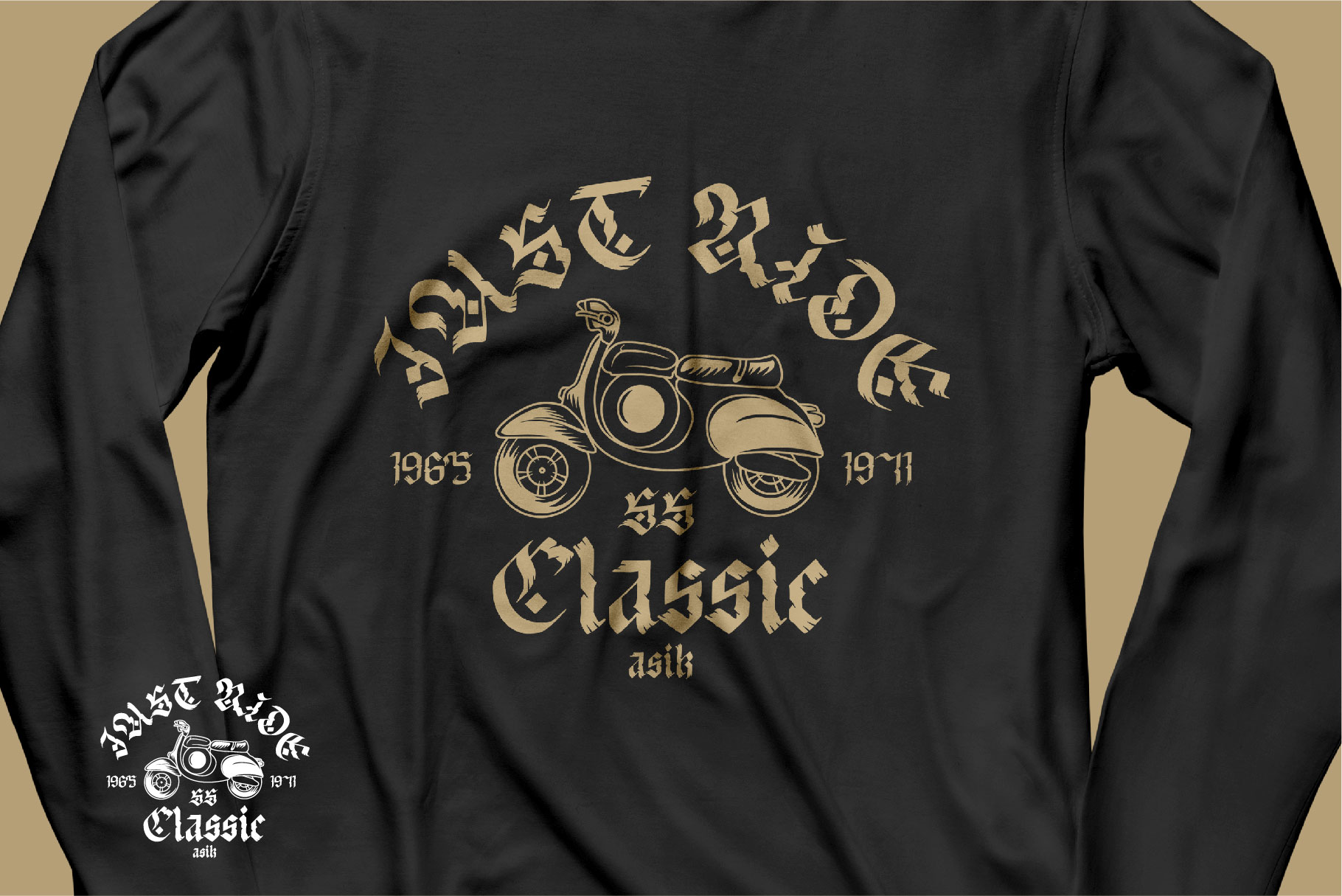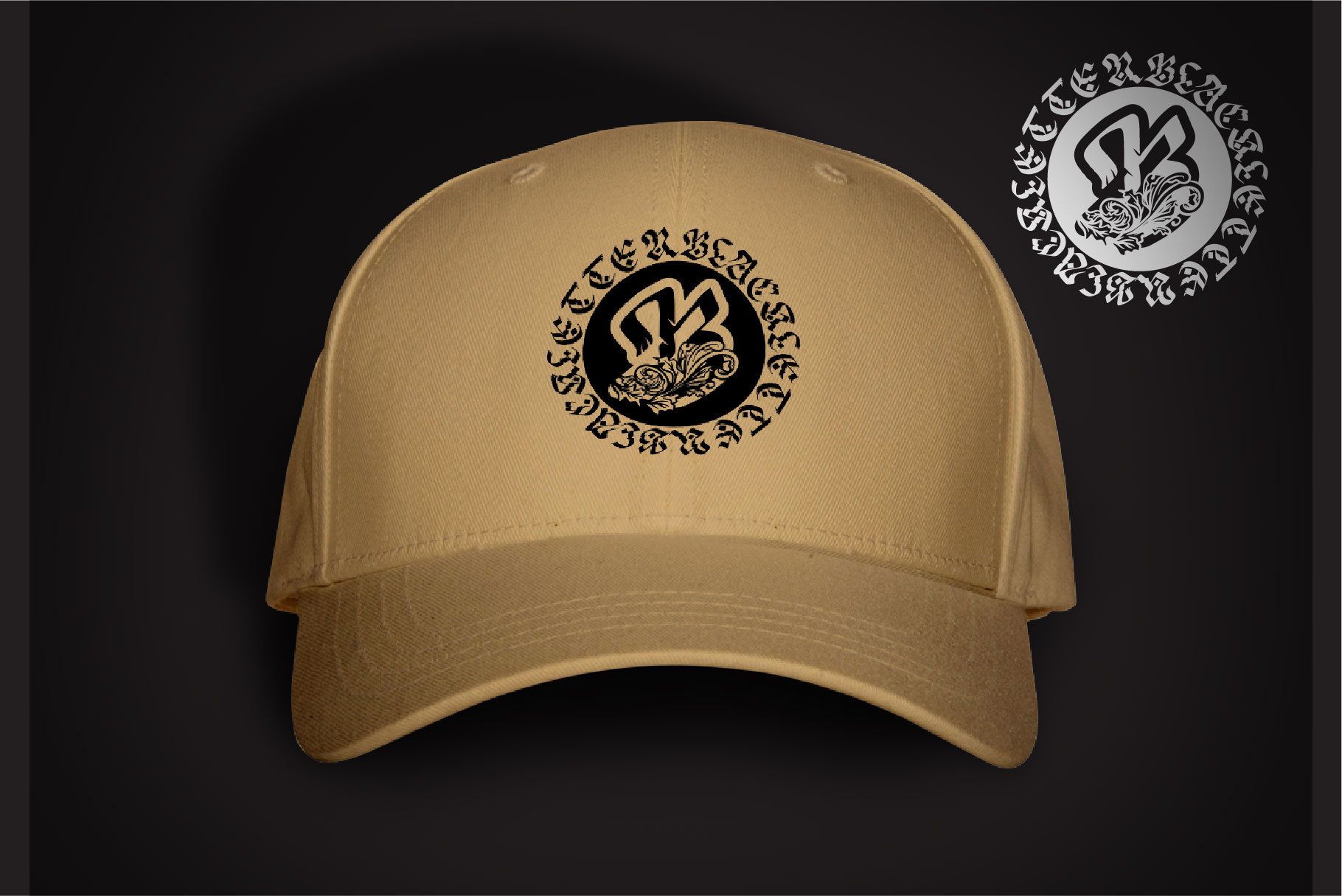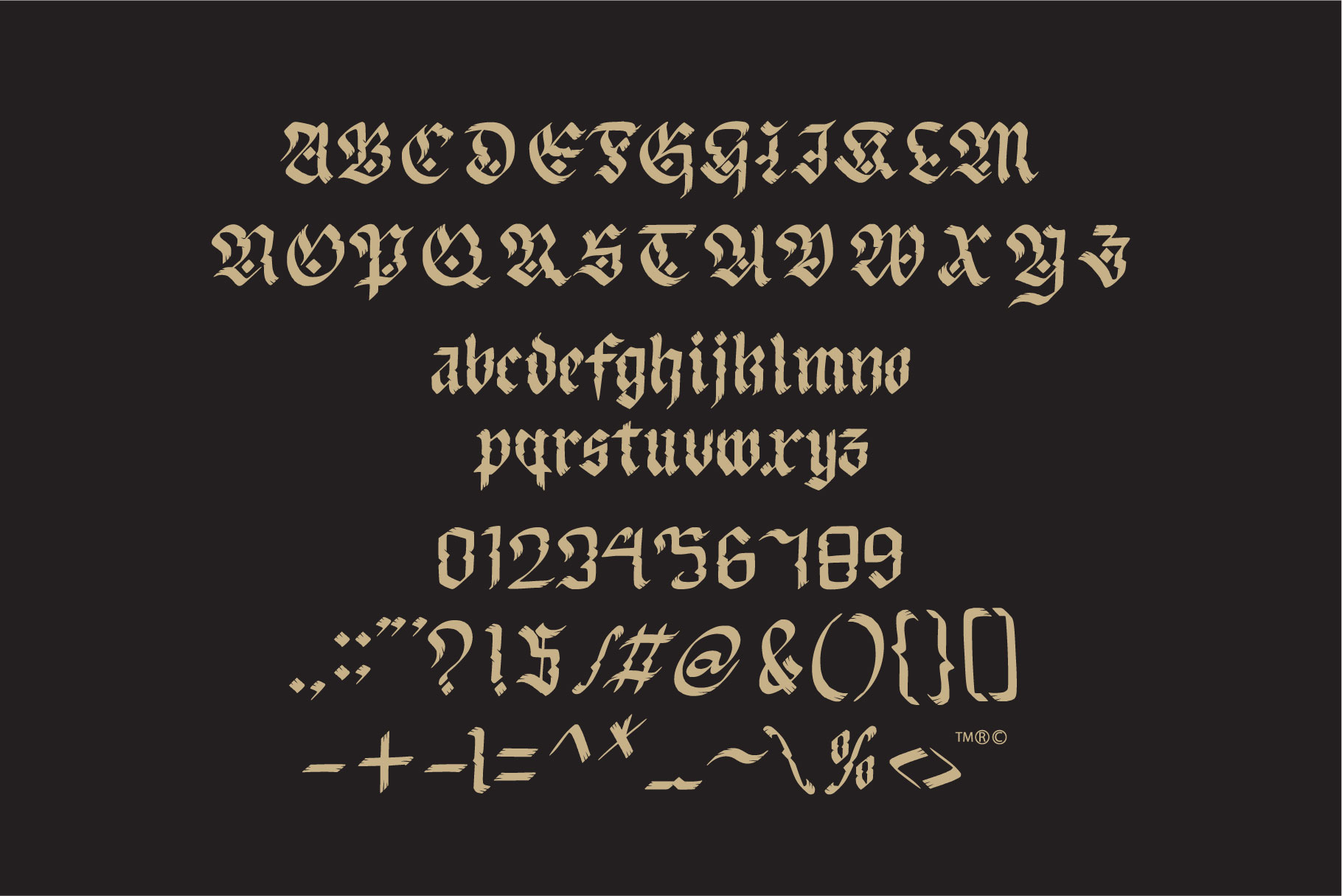
Franklin Fractur Font
Franklin Fractur Blackletter Font
This display font is the perfect addition to your t-shirt, jacket, hat, design studio, ready for your next logo, barber shop, coffee shop label. Modern blend of fracture and blackletter with a touch or vintage